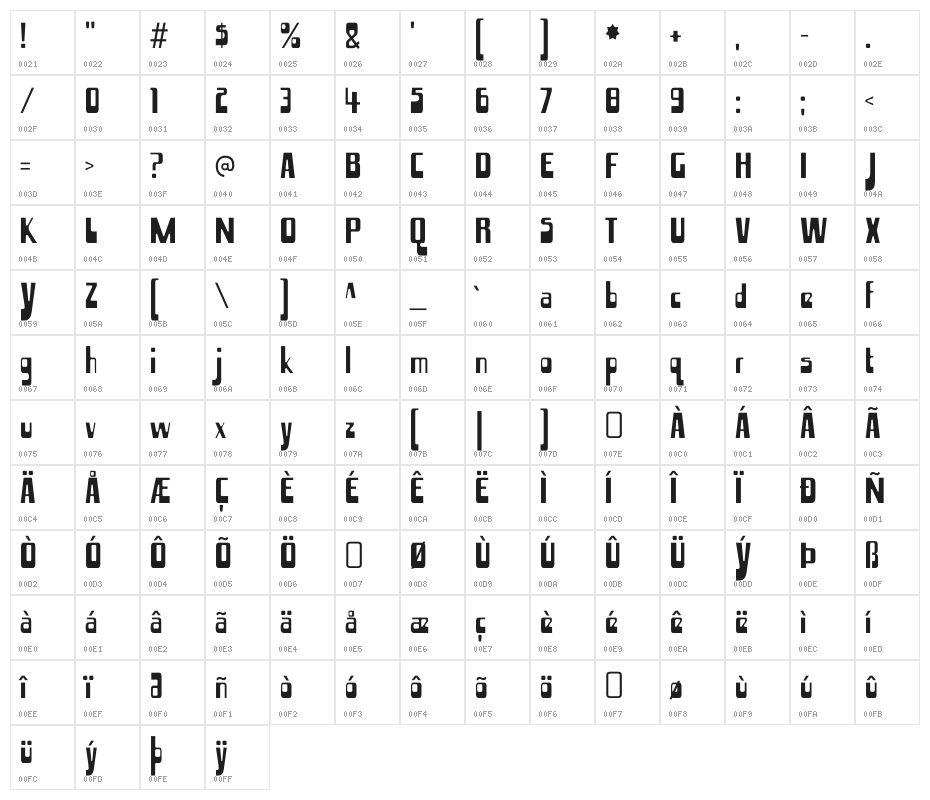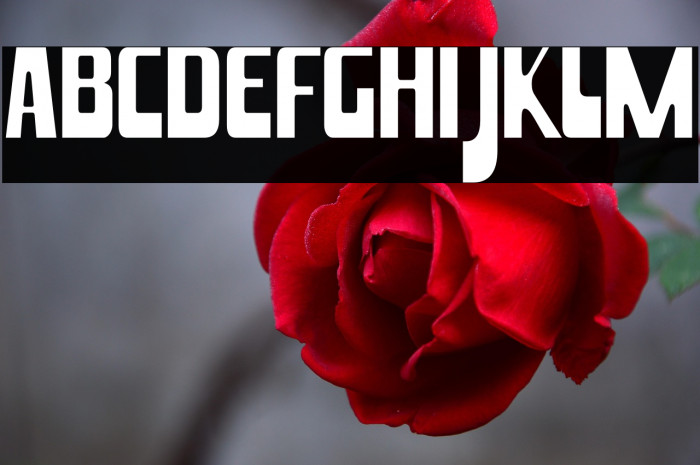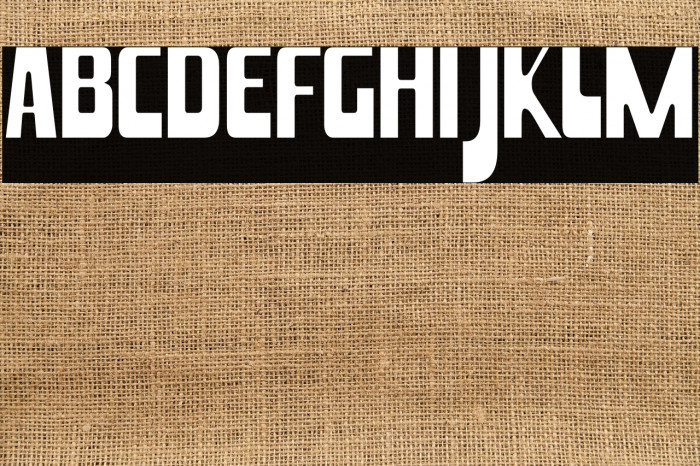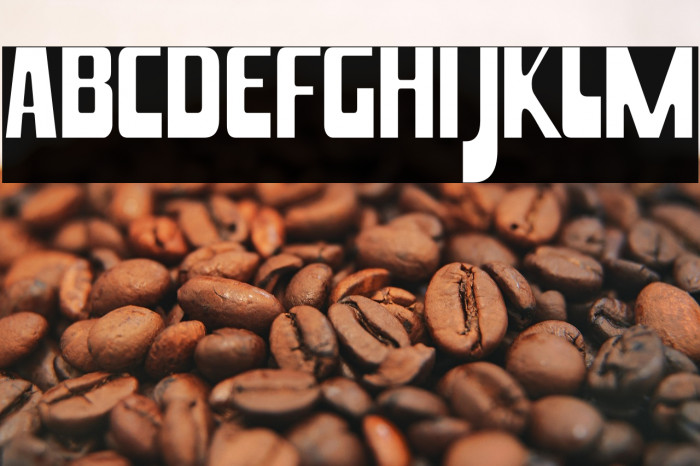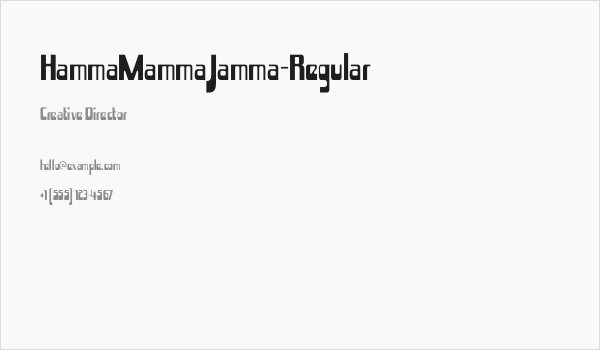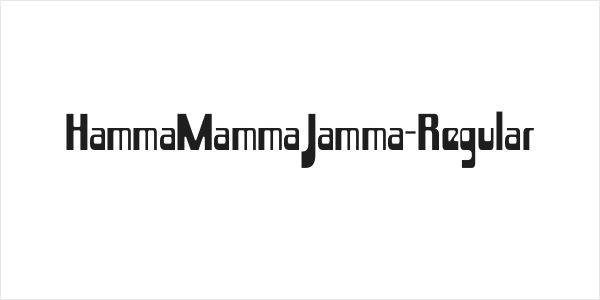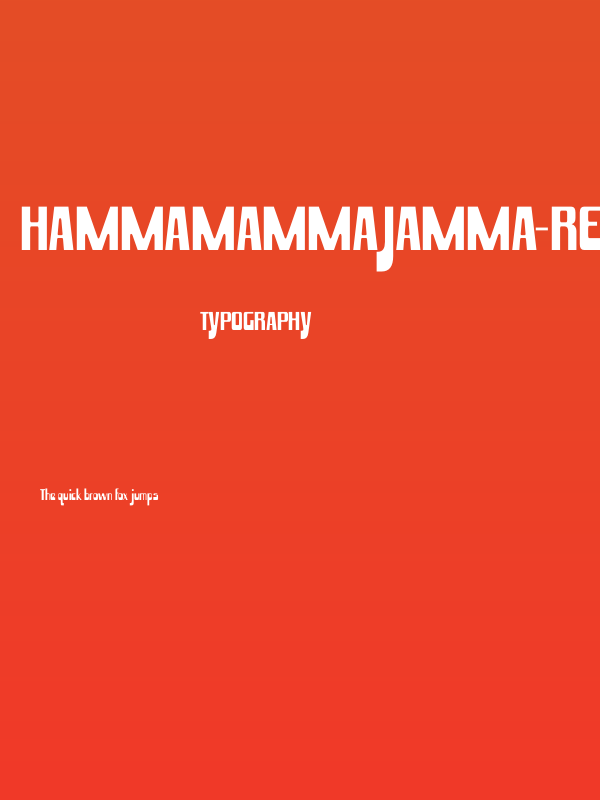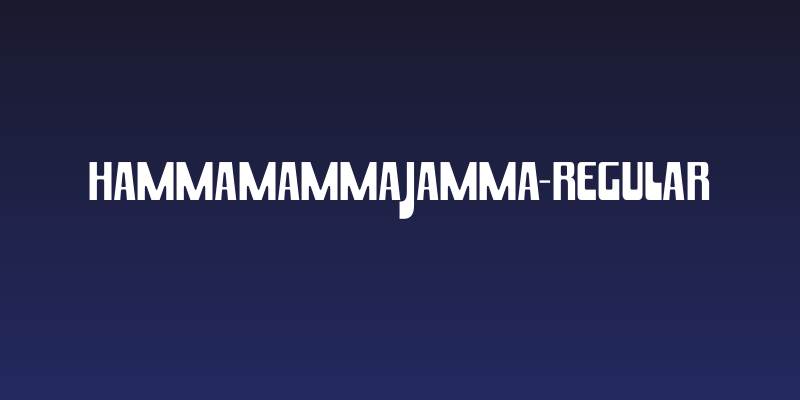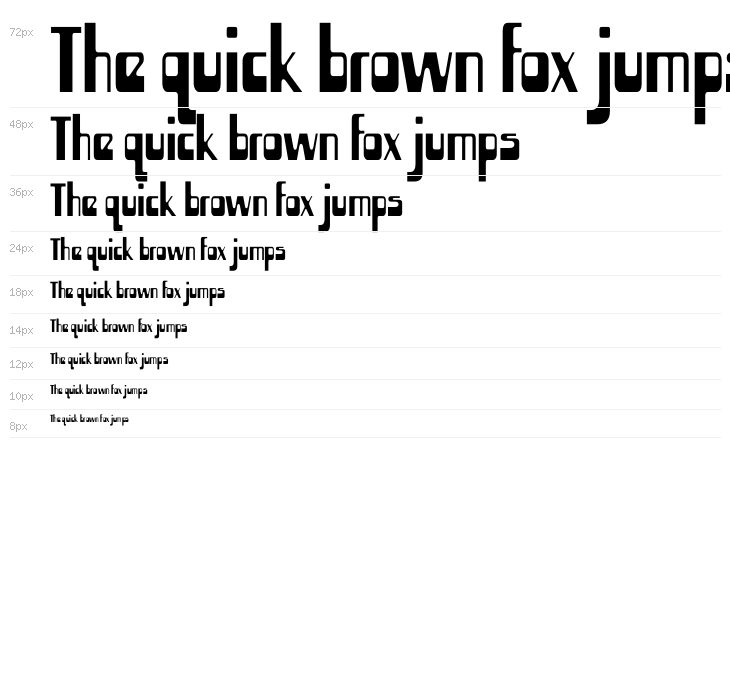
HammaMammaJamma-Regular Font
HammaMammaJamma-Regular Description
This font features a bold, geometric design with strong, angular lines and a modern aesthetic. The uppercase letters are particularly striking, with a blocky, solid appearance that commands attention. The lowercase letters maintain a consistent style, though they are slightly more streamlined, offering a nice contrast to the uppercase. Numbers and special characters are designed with the same boldness, ensuring uniformity across all characters. The overall look is dynamic and impactful, making it suitable for projects that require a strong visual presence.
| Proposed Projects | Ideal for branding, poster design, headlines, and any project requiring a strong visual impact. |